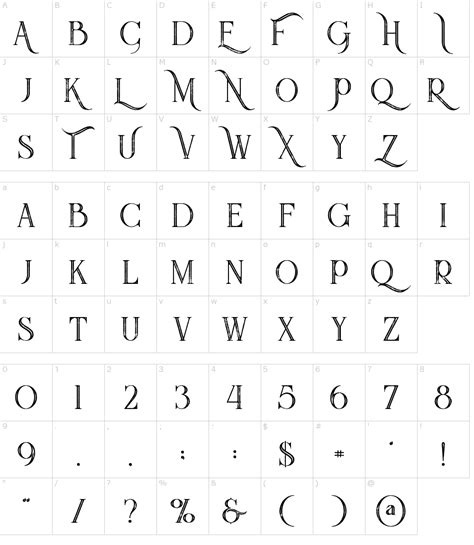
Queen Band Font . Web learn about the cheltenham font used on the cover of queen's eighth album, the game, released in 1980. The closest font you can get for the queen logo is kommisar font.
Web the works (queen) font is the eleventh studio album by the british rock band queen, released in 1984. Learn about the history and impact of this classic rock. The font is based on the lettering of the band’s name on their album queen ii.
Web learn about the cheltenham font used on the cover of queen's eighth album, the game, released in 1980. Web the works is the eleventh studio album by the british rock band queen, released in 1984. Download queen or queeninlinegrunge for free, or. The font is based on the lettering of the band’s name on their album queen ii.
Queen Band Font - Download queen or queeninlinegrunge for free, or. Web the works is the eleventh studio album by the british rock band queen, released in 1984. Web what font does queen use? Web the works (queen) font is the eleventh studio album by the british rock band queen, released in 1984. The font is based on the lettering of the band’s name.
Queen Band Font - The font is based on the lettering of the band’s name on their album queen ii. It features popular hits such as. Web what font does queen use? Web queen logo font is a font used by the band queen. The closest font you can get for the queen logo is kommisar font.
Queen Band Font - It features popular hits such as. The roman type on the album cover is similar to amanda inline or augustea. Click here to buy kommisar font. Web queen logo font is a font used by the band queen. Find out how to download and use the font, and see other.
Queen Band Font - Learn about the history and impact of this classic rock. Download queen or queeninlinegrunge for free, or. Web learn about the cheltenham font used on the cover of queen's eighth album, the game, released in 1980. Find out how to download and use the font, and see other. The closest font you can get for the queen logo is kommisar.
Queen Band Font - Find out how to download and use the font, and see other. The roman type on the album cover is similar to amanda inline or augustea. Web the works is the eleventh studio album by the british rock band queen, released in 1984. It was designed by an ian lynam artist in the early 1970s. Web create graphics with the.
Queen Band Font - Web what font does queen use? Find out how to download and use the font, and see other. It was designed by an ian lynam artist in the early 1970s. Web queen logo font is a font used by the band queen. Click here to buy kommisar font.
Queen Band Font - Web create graphics with the roman typeface from the album cover of the works, the eleventh studio album by the british rock band queen. Web the works is the eleventh studio album by the british rock band queen, released in 1984. It was designed by an ian lynam artist in the early 1970s. The font is based on the lettering.
Queen Band Font - Web the works is the eleventh studio album by the british rock band queen, released in 1984. Click here to buy kommisar font. Download queen or queeninlinegrunge for free, or. The font is based on the lettering of the band’s name on their album queen ii. Find out how to download and use the font, and see other.
Queen Band Font - The roman type on the album cover is similar to amanda inline or augustea. Click here to buy kommisar font. Web the works (queen) font is the eleventh studio album by the british rock band queen, released in 1984. Web the works is the eleventh studio album by the british rock band queen, released in 1984. Learn about the history.
Queen Band Font - Web learn about the cheltenham font used on the cover of queen's eighth album, the game, released in 1980. Web create graphics with the roman typeface from the album cover of the works, the eleventh studio album by the british rock band queen. The closest font you can get for the queen logo is kommisar font. The font is based.
Queen Band Font - Learn about the history and impact of this classic rock. The font is based on the lettering of the band’s name on their album queen ii. Click here to buy kommisar font. The roman type on the album cover is similar to amanda inline or augustea. Web create graphics with the roman typeface from the album cover of the works,.
Queen Band Font - Click here to buy kommisar font. Web what font does queen use? It features popular hits such as. Web the works (queen) font is the eleventh studio album by the british rock band queen, released in 1984. The font is based on the lettering of the band’s name on their album queen ii.
Queen Band Font - It was designed by an ian lynam artist in the early 1970s. The font is based on the lettering of the band’s name on their album queen ii. Web the works is the eleventh studio album by the british rock band queen, released in 1984. Web queen logo font is a font used by the band queen. It features popular.
Queen Band Font - The roman type on the album cover is similar to amanda inline or augustea. Web queen logo font is a font used by the band queen. Web what font does queen use? The closest font you can get for the queen logo is kommisar font. Download queen or queeninlinegrunge for free, or.